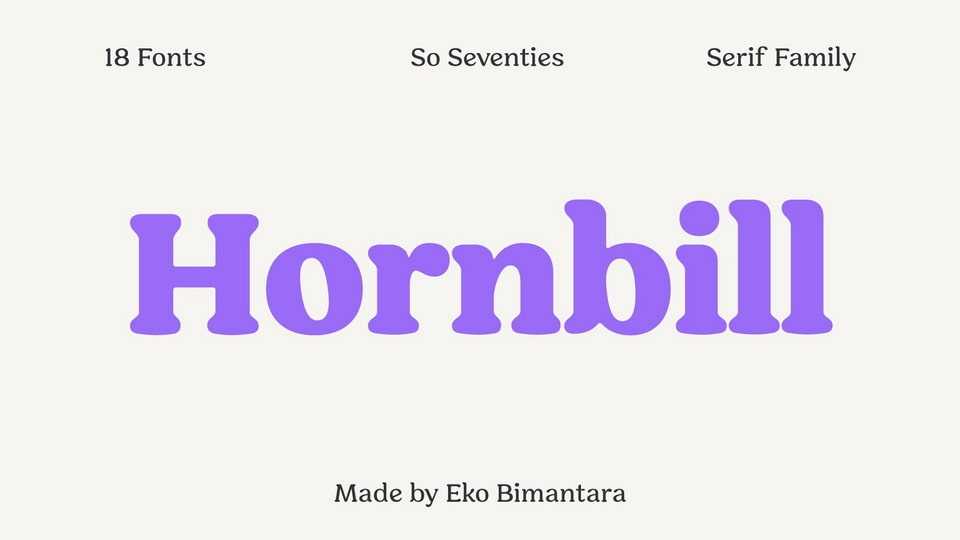
Download Hornbill font, a soft serif typeface that inspired by the 70’s retro styles. Hornbill give a clean and versatile letterform that fit not only for display, but also for reading purposes.